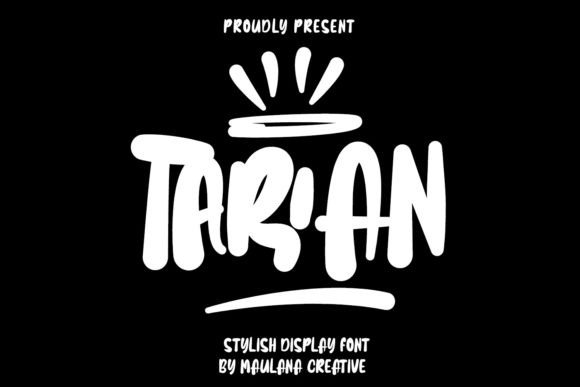
Tarian Font: A Bold and Eye-Catching Display Font for Stunning Headlines
Tarian Font is a modern, bold, and eye-catching display font designed to make your titles, posters, and headlines stand out from the crowd. With its strong, thick lines and stylish design elements, Tarian Font is perfect for anyone looking to add a touch of sophistication and elegance to their typography.
The Features of Tarian Font
Tarian Font boasts a range of features that make it an ideal choice for designers and typographers. Some of its key features include:
- Bold and Eye-Catching: Tarian Font features strong, thick lines that are designed to grab attention and make a statement.
- Stylish Design Elements: The font includes stylish design elements that add a touch of elegance and sophistication to your typography.
- Perfect for Titles and Headlines: Tarian Font is specifically designed for use in titles, posters, and headlines, making it perfect for anyone looking to add a touch of drama and flair to their text.
- Highly Versatile: Tarian Font can be used in a range of design applications, from print to digital, and is suitable for use in a variety of industries, including advertising, marketing, and publishing.
The Benefits of Using Tarian Font
There are many benefits to using Tarian Font in your design projects. Some of the key benefits include:
- Increased Visibility: Tarian Font is designed to stand out and grab attention, making it perfect for use in titles and headlines where you want to make a statement.
- Improved Readability: The font features clear and stylish lettering, making it easy to read and understand, even at small sizes.
- Enhanced Creativity: Tarian Font offers a range of design possibilities, allowing you to experiment with different styles and effects to create unique and eye-catching text.
- Time-Saving: With Tarian Font, you can create professional-looking text quickly and easily, saving you time and effort in your design projects.
Tarian Font in Graphic Design
Tarian Font is a versatile font that can be used in a range of graphic design applications. Some of the ways you can use Tarian Font in graphic design include:
- Posters and Flyers: Use Tarian Font to create eye-catching posters and flyers that grab attention and communicate your message.
- Logos and Branding: Use Tarian Font to create bold and memorable logos and branding elements that help to establish your identity.
- Headlines and Titles: Use Tarian Font to create stunning headlines and titles that add a touch of drama and flair to your text.
- Advertising and Marketing: Use Tarian Font to create attention-grabbing ads and marketing materials that help to promote your product or service.
Tarian Font in Digital Design
Tarian Font is not just limited to print design; it can also be used in digital design applications. Some of the ways you can use Tarian Font in digital design include:
- Web Design: Use Tarian Font to create stunning website headers, titles, and other text elements that add a touch of elegance and sophistication to your website.
- Social Media: Use Tarian Font to create eye-catching social media posts and graphics that help to engage your audience and promote your brand.
- Email Marketing: Use Tarian Font to create attention-grabbing email headlines and titles that help to increase open rates and engagement.
- Digital Advertising: Use Tarian Font to create bold and memorable digital ads that help to promote your product or service.
Tips and Tricks for Using Tarian Font
Here are some tips and tricks for using Tarian Font:
- Use it Sparingly: Tarian Font is a bold font, so use it sparingly to avoid overwhelming your design.
- Experiment with Colors: Experiment with different colors and color combinations to add visual interest to your text.
- Mix and Match: Mix and match Tarian Font with other fonts to create a unique and eye-catching typography style.
- Pay Attention to Kerning: Pay attention to kerning and letter spacing to ensure that your text is clear and easy to read.
Tarian Font is a bold and eye-catching display font that is perfect for titles, posters, and headlines. With its strong, thick lines and stylish design elements, Tarian Font is sure to grab attention and make a statement. Whether you’re a designer, typographer, or simply someone looking to add a touch of elegance and sophistication to your text, Tarian Font is a great choice.